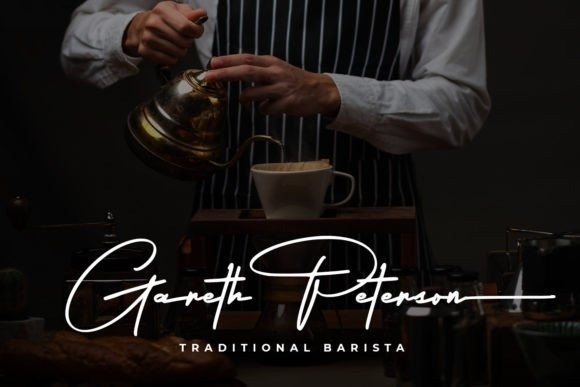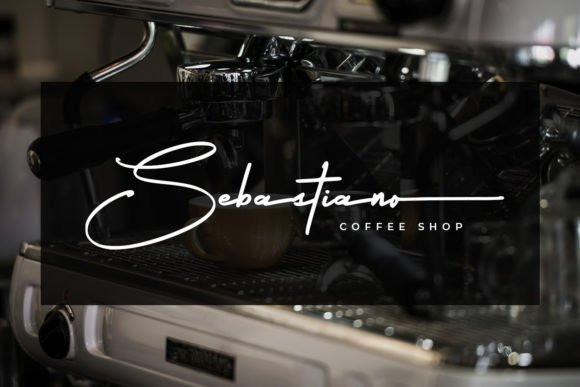
Smooth Signature Handwriting Font
Smooth Signature Handwriting Font is a stylish and delicate script font. It has a clean, thin, and smooth vibe and it will be a hit for any design that you want to add it to. This font is PUA encoded which means you can access all the glyphs and swashes with ease!